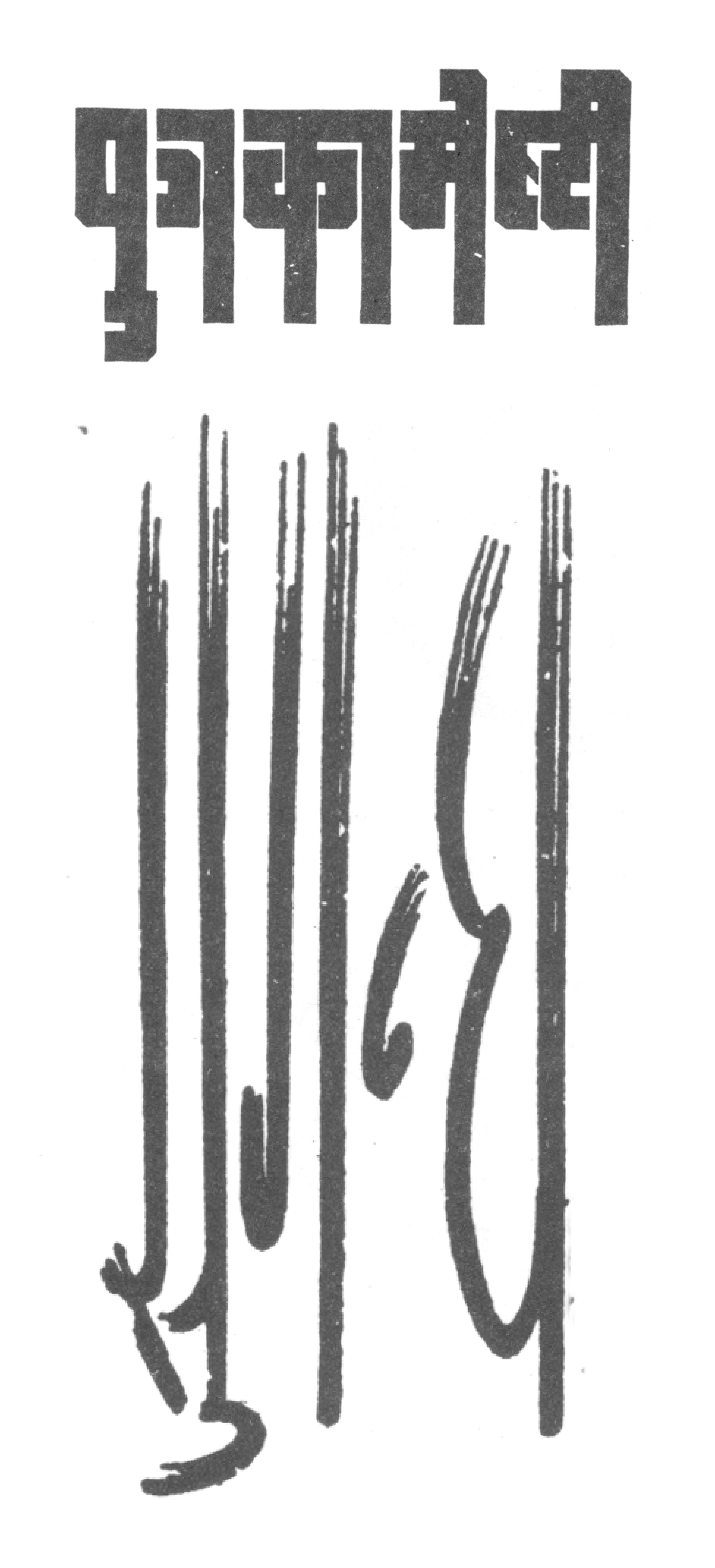
Hello, and happy new year! I’m back from a little rest in December, and this month, I spy with my typographic eye a new Devanagari adaptation of TypeCooker, and to mark India’s Republic Day, a look at the postage stamps released to celebrate the first one in 1950.
For the last five years or so, I have toyed with adapting Erik van Blokland’s TypeCooker to Devanagari. The thought came to me after I finished drawing the letter क in a different style every week in 2017, and was looking for new ways to exercise my mind and muscles when it came to drawing Devanagari letters.
In case you’re unfamiliar with TypeCooker, the idea behind it is simple yet brilliant. In Erik van Blokland’s own words — “TypeCooker is a simple exercise generator for those interested in type design and lettering. It chooses randomly from lists of carefully picked parameters, in varying degrees of difficulty (more or fewer parameters) and complexity. The task is then to draw letters that incorporate as many of the parameters as possible.” He writes in some detail about it on his website, and I would urge to you to check that out.
Making a Devanagari TypeCooker
Obviously, I am not the first person to come up with the notion to extend or reimagine TypeCooker, and definitely not the first one to execute it. Mota Italic’s Indic TypeCooker sheds the original’s Latin-centric point of view in favour of a wide-ranging tool that can be used for a range of Indic scripts, including Devanagari. Martina Flor’s LetteringMaker is another example. In the holidays, when I revisited my efforts to make Devanagari TypeCooker into something more than the stop-gap version I had put together for myself, I asked myself why it would be useful for others too. The single word answer was “specificity”, but allow me to explain.
In my early attempts to use TypeCooker for Devanagari, I would either ignore the Latin-specific instructions, or adapt them to the closest Devanagari counterpart I could think of. This worked, sort of. But it rendered the tool limiting because it wasn’t dialled into all the features of the script that can be modified to create different textures and expressions through type. I ran into a similar challenge in using Indic TypeCooker, though to a smaller extent. Because it has to be useful for a number of Indic scripts, it has to be general enough and shun particularities. To make a TypeCooker attuned to Devanagari, I had started collecting samples of Devanagari typefaces and lettering and making notes about their features in 2018. Finally, last month, armed with notes and drawings from years past, and help from my brother, Prateek, I got to work. And here it is now, Devanagari TypeCooker!
Parameters for a Devanagari TypeCooker
So what parameters did I decide to include? Let me walk you through them, alongside some illustrative samples from three of the sources I consulted — Practical Guide to Lettering by KC Aryan, Modern Hindi-English Lettering by AH Hashmi, and Chitraksharam by Kamal Shedge.
Horizontal Proportions
For this, I stuck to the parameters that come with the original TypeCooker: Weight and Width, though I tweaked some explanatory texts and changed the options around a little bit.
Vertical Proportions
The first set of parameters to set vertical proportions was easy. Matra Height Above Headline and Matra Depth Below Baseline can control the relationship between the size of the letters with the mātrās that attach to them.
Note the variation in the height of mātrās above the headline, and their depth below the baseline in these examples. This play of vertical proportions serves functional purposes, like fitting Devanagari in limited vertical space when being matched with Latin, as well as expressive ones.
But that’s not enough is it? What about the vertical proportions within the letters themselves, everything that happens between the headline and baseline? This is where I ran into a roadblock: terminology for Devanagari letterforms isn‘t quite as well-accepted or known as in Latin. To be honest, I couldn’t find any terms that could be used here that would be instantly familiar, and so I ended up using the location of the upper and lower mean lines (as seen here) as a way to exercise control over where the action happens: are the half stems long or short, how high or low are the bowls, and what is their overall height, etc. Arguably, this means that Devanagari TypeCooker needs a reference document explaining all the terms used in it, and I hope to work on one sooner than later.
These maybe rather extreme examples, but they show us how a change in the vertical proportions can really transform Devanagari letterforms.
Contrast
The notion of Contrast from the original was re-oriented to make it meaningful for Devanagari. I moved away from Noordzij’s concepts of “translation” and “expansion”, and towards Girish Dalvi’s terminology of Axis, which is described in the Devanagari Search Tool built on the foundations of his doctorate work. Devanagari TypeCooker offers four options for Axis: Left-inclined, Right-inclined, Vertical and Horizontal. And with where thick and thin strokes should go determined, the extent of difference between them is specified by the parameter, Contrast Amount.
Even though the first two samples here have unconventional axes: left-inclined and horizontal, I think they give us opportunities to think carefully about what makes Devanagari letters what they are.
Stroke Ending
In the parameter Stroke Ending, I have, perhaps controversially, included the direction for adding serifs. Serifs may not be traditional in Devanagari, but they exist. Case in point, Manushi Parikh’s typeface, Begum, and Namrata Goyal’s Devanagari wordmark for political magazine, The Caravan. So why not explore pleasant ways of incorporating them? Apart from this and other run-of-the-mill choices, there is also the instruction to add out-strokes. Out-strokes can exist in so many shapes and styles, and it always disappoints me that they don’t show up as much in contemporary typefaces.